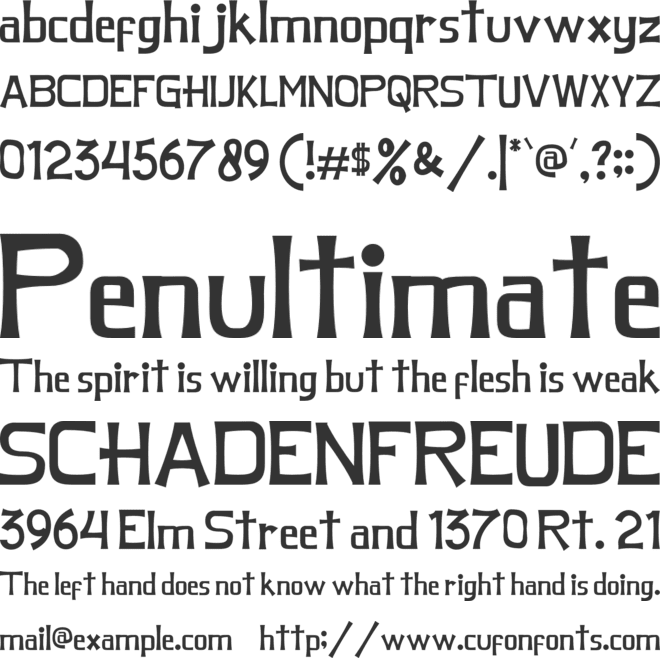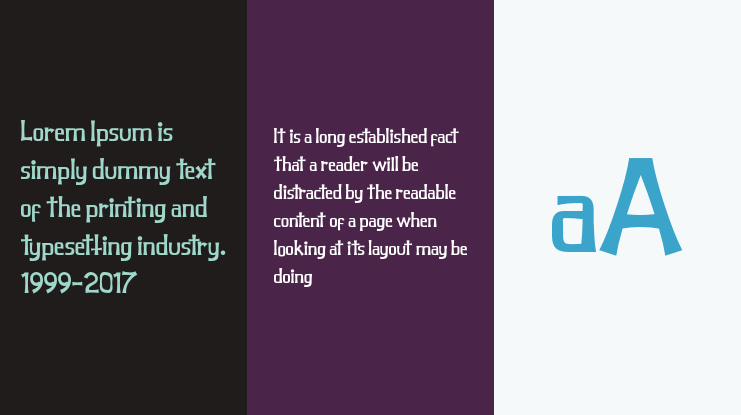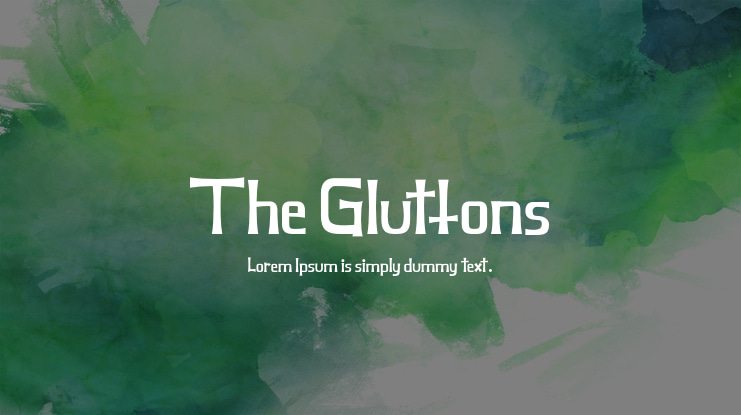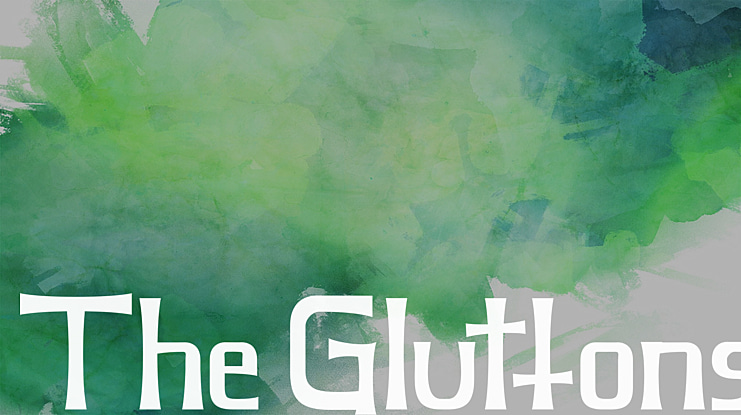
The Gluttons Font
Introducing our new release, The Gluttons Modern Display Typeface. This typeset is perfect for brand logo, invitations, greeting card, or even any kind of project. With multilingual feature and style variations, this typeface would further enhance the aestethical aspect of your work.Click our website :https://displaytypefont.com/product/the-gluttons/